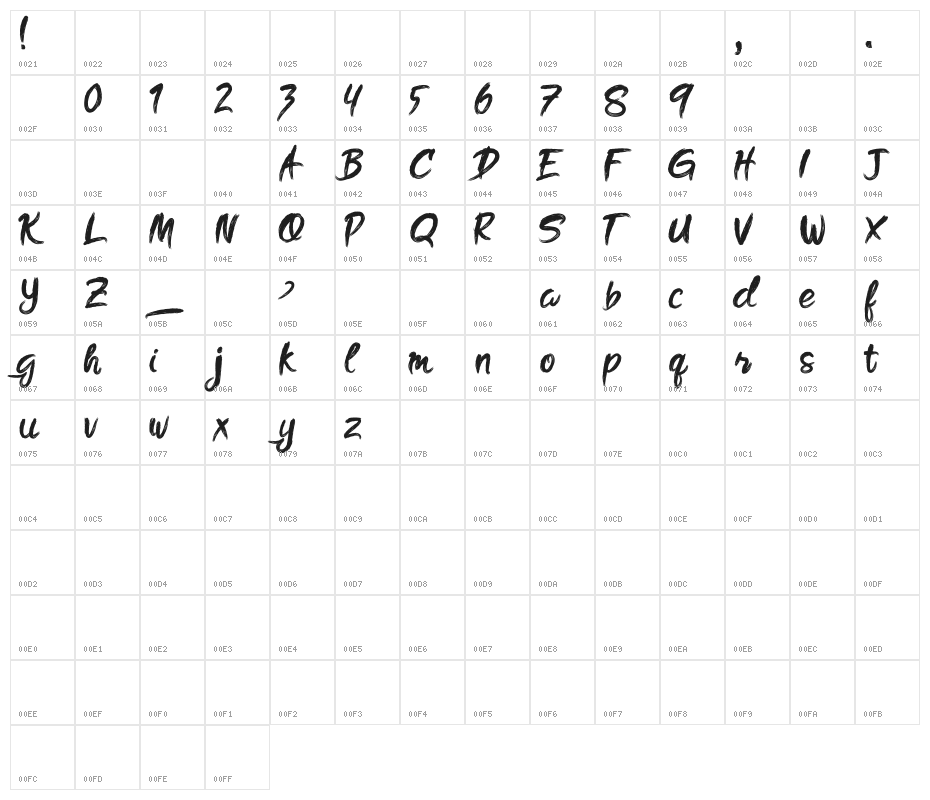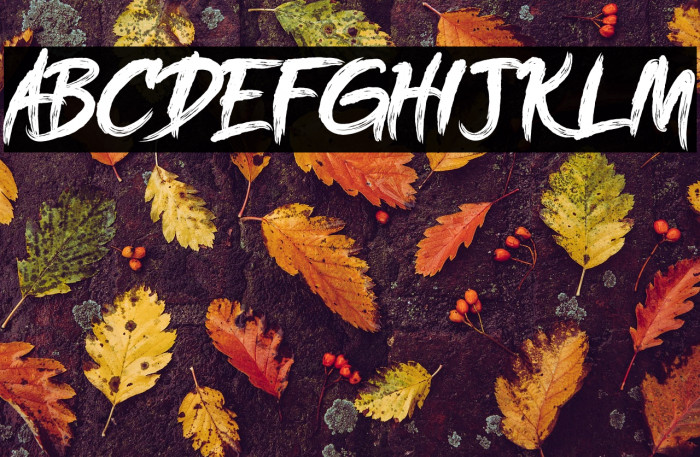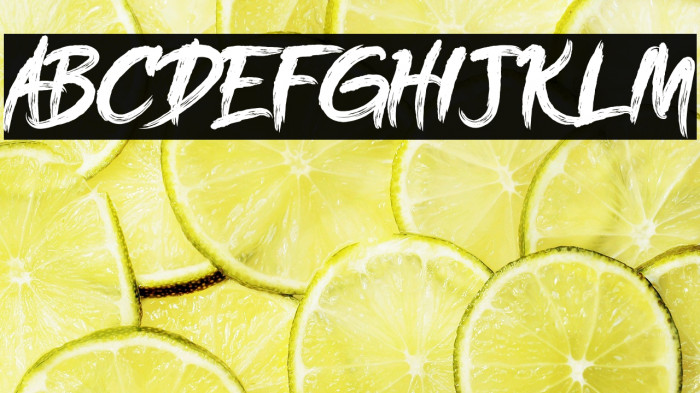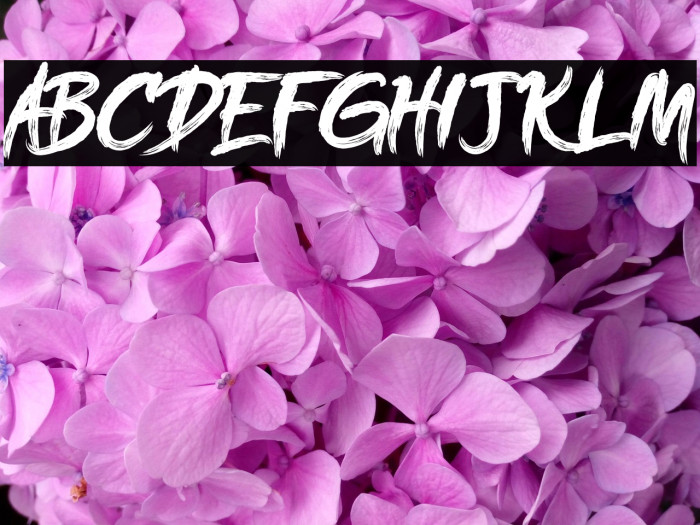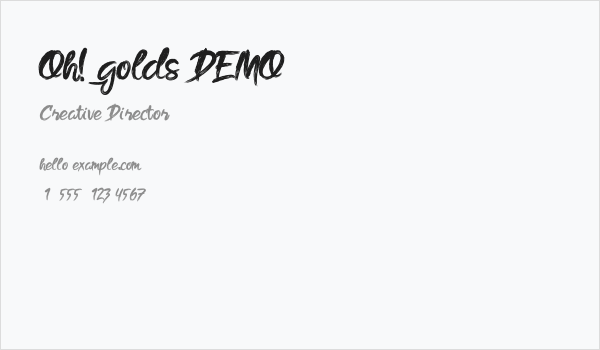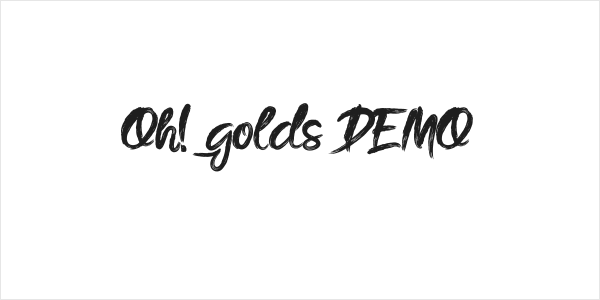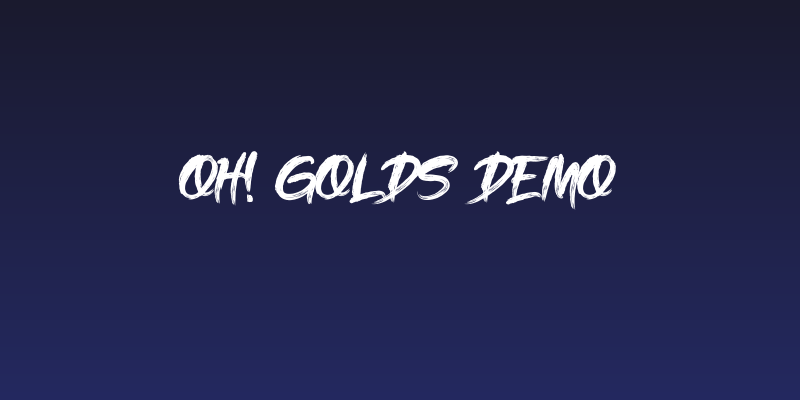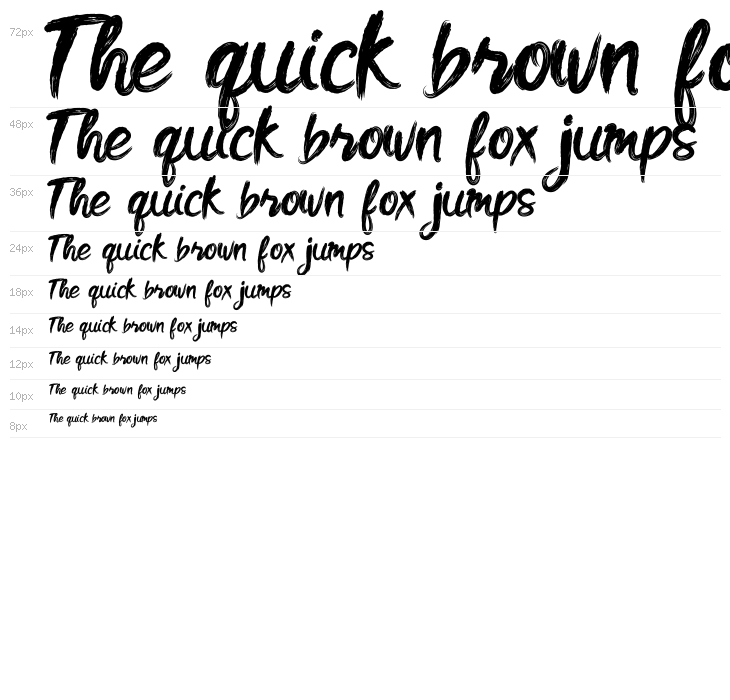
Oh! golds DEMO Font
Oh! golds DEMO Description
This font features a bold, expressive brush style that exudes energy and dynamism. The strokes are thick and uneven, giving it a hand-painted appearance that is both artistic and raw. The uppercase letters are particularly striking, with dramatic curves and sharp angles that create a sense of movement. The lowercase letters maintain this energetic style, with some characters featuring unique flourishes that add to the overall aesthetic. The numbers and special characters are equally bold, ensuring consistency across all elements. This font is perfect for projects that require a strong visual impact and a touch of creativity.